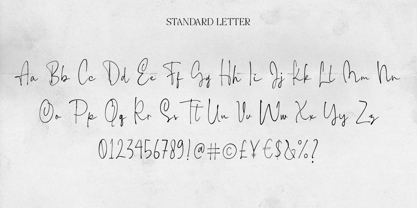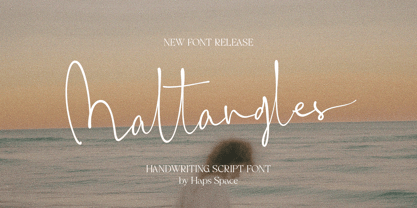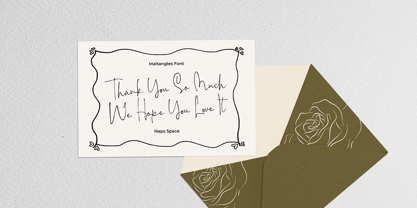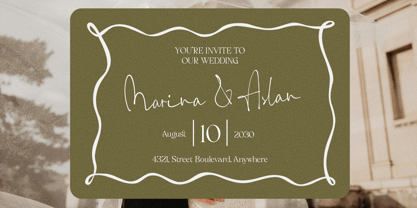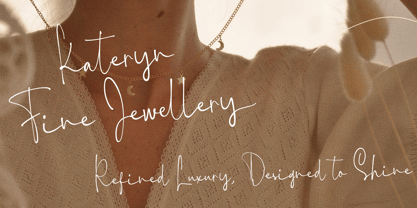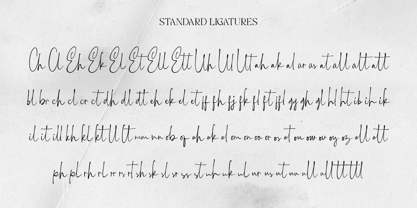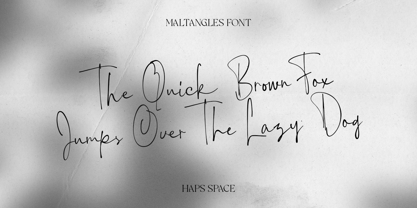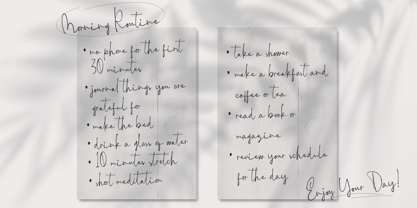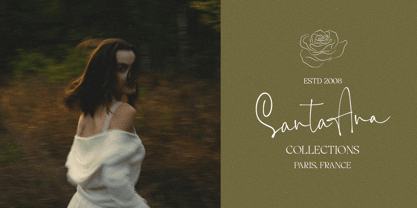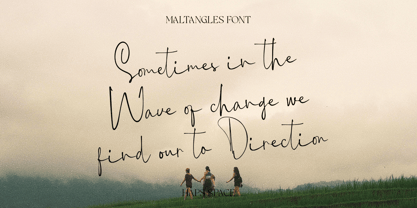
Maltangles Signature
by Haps Space
The Maltangles Signature Font Family was designed by Haris Purnama Putra, Egi Ahmad Mufid and published by Haps Space. Maltangles Signature contains 1 styles. More about this family
Maltangles Signature is an elegant handwriting script font that captures the essence of delicate and fluid handwritten strokes. Its organic letterforms and graceful flow offer a natural and personal touch, making it an ideal choice for projects that require a sense of intimacy and authenticity.
Ideally suited for branding, packaging, logotypes, editorial layouts, and social media graphics. Its refined handwritten appearance adds a personal yet professional touch, making it an excellent option for both digital and printed creative works.